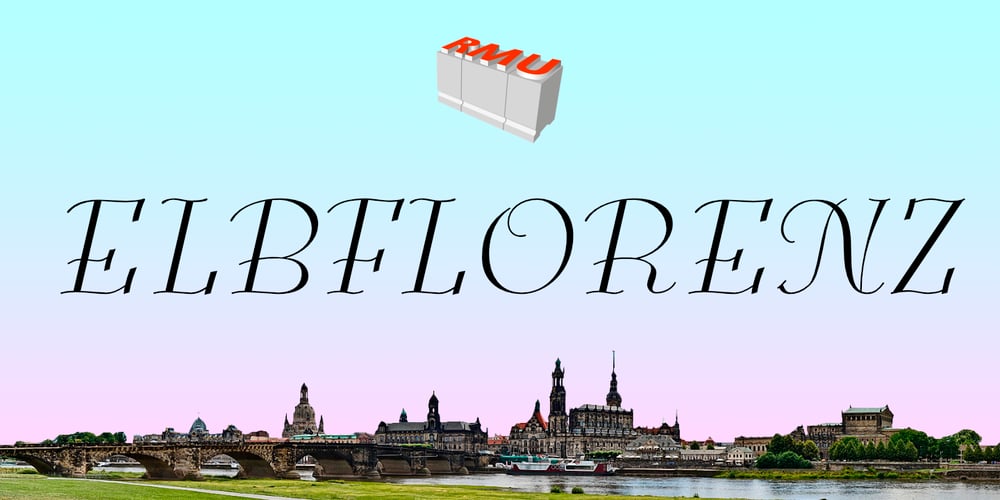
Elbflorenz Font Family was designed by Ralph M. Unger and published by RMU. Elbflorenz contains 1 styles and family package options. Another jewel of the vast treasure of historical font designs was digged out and brought to life again. Due to the courtesy of the Quay Brothers, London, who yielded to me an age-old brochure of Albert Auspurg’s ‚Miami‘, released by Schriftguss in 1934, I was able to redesign this elegant font. This font which I called ‚Elbflorenz‘, a cognomen for Dresden, contains West and Central European type faces as well as those for Romanian and Turkish.To get access to the historical number sign please use either the OT feature additional ligatures or ordinals.